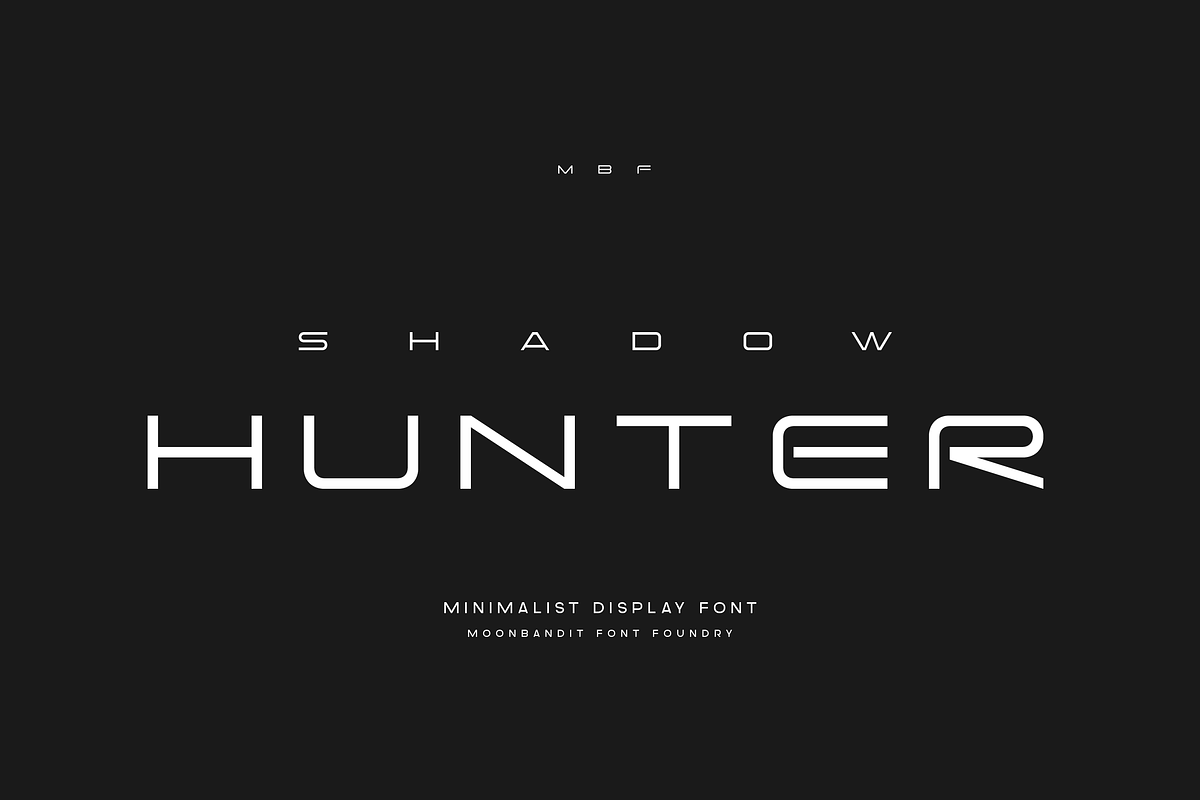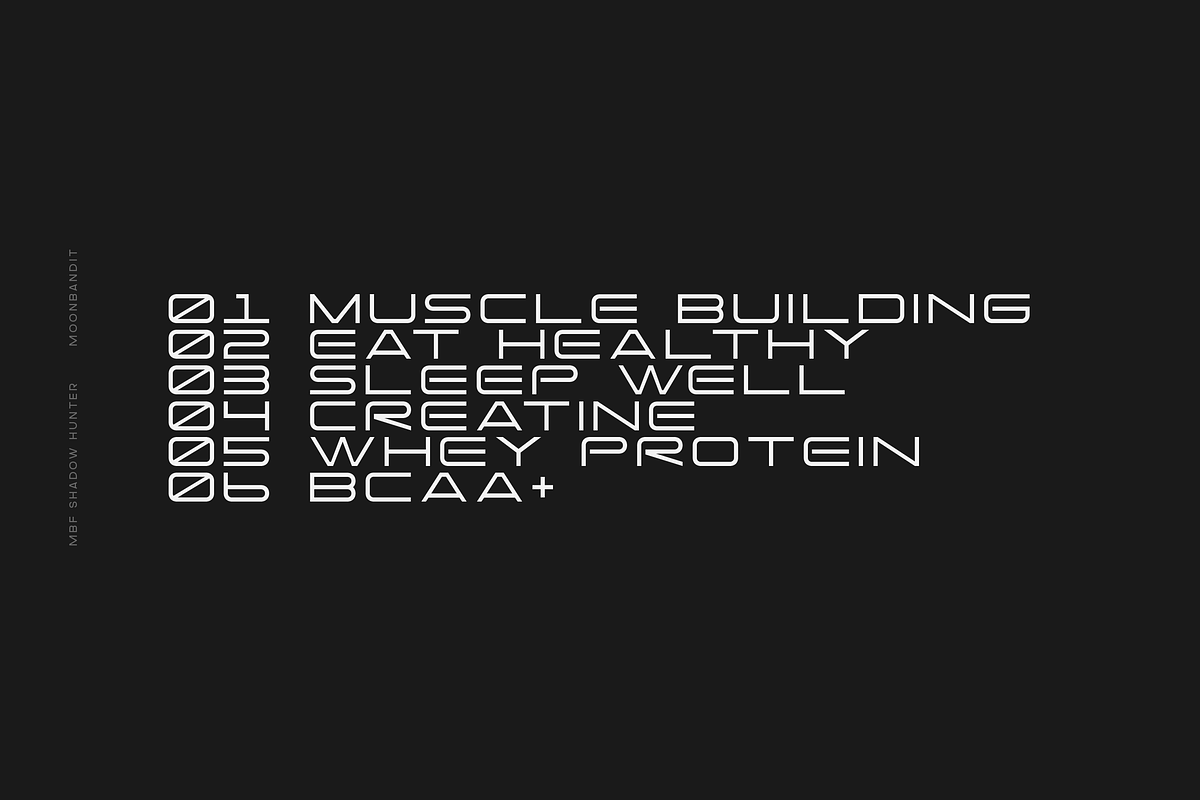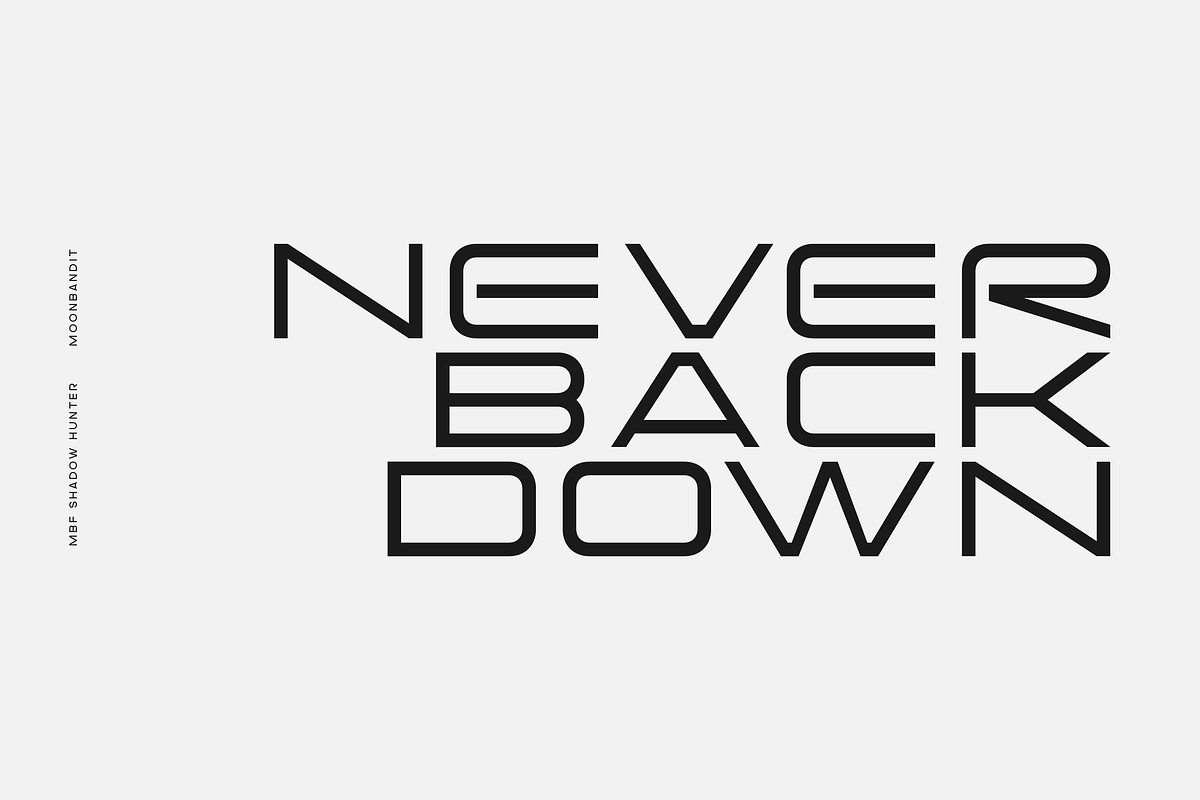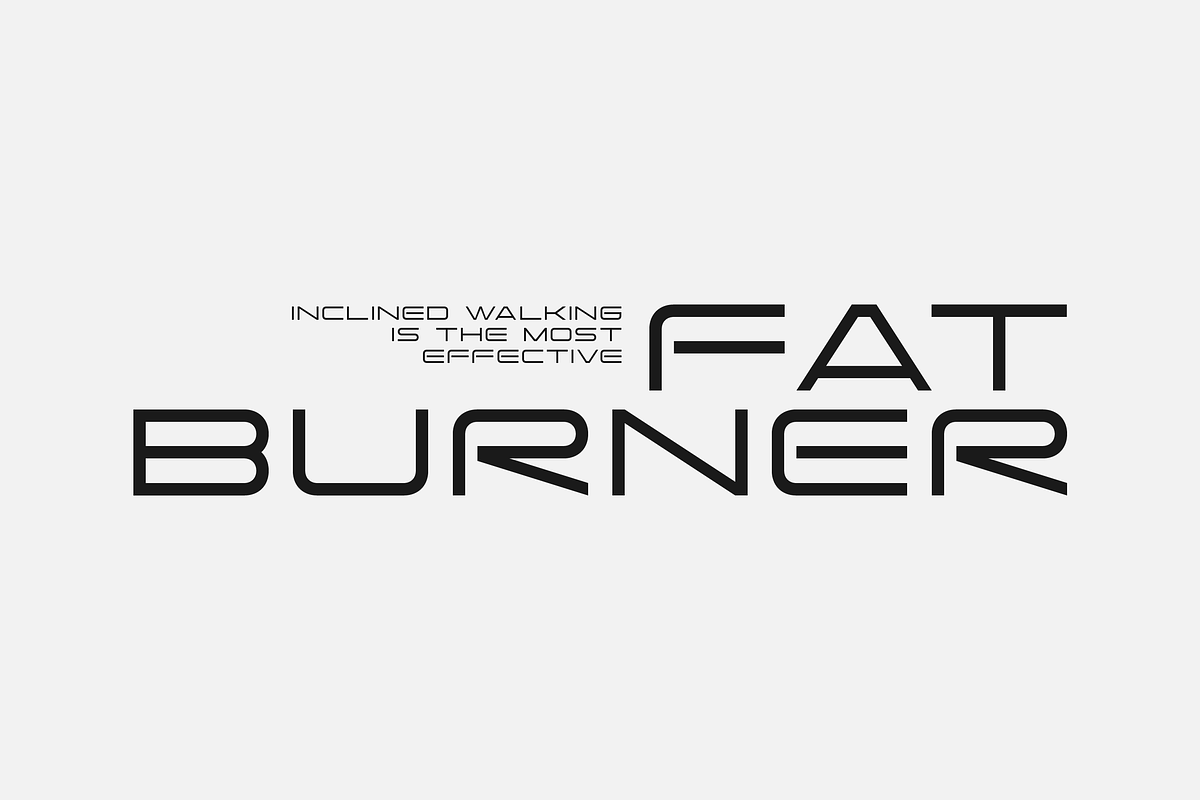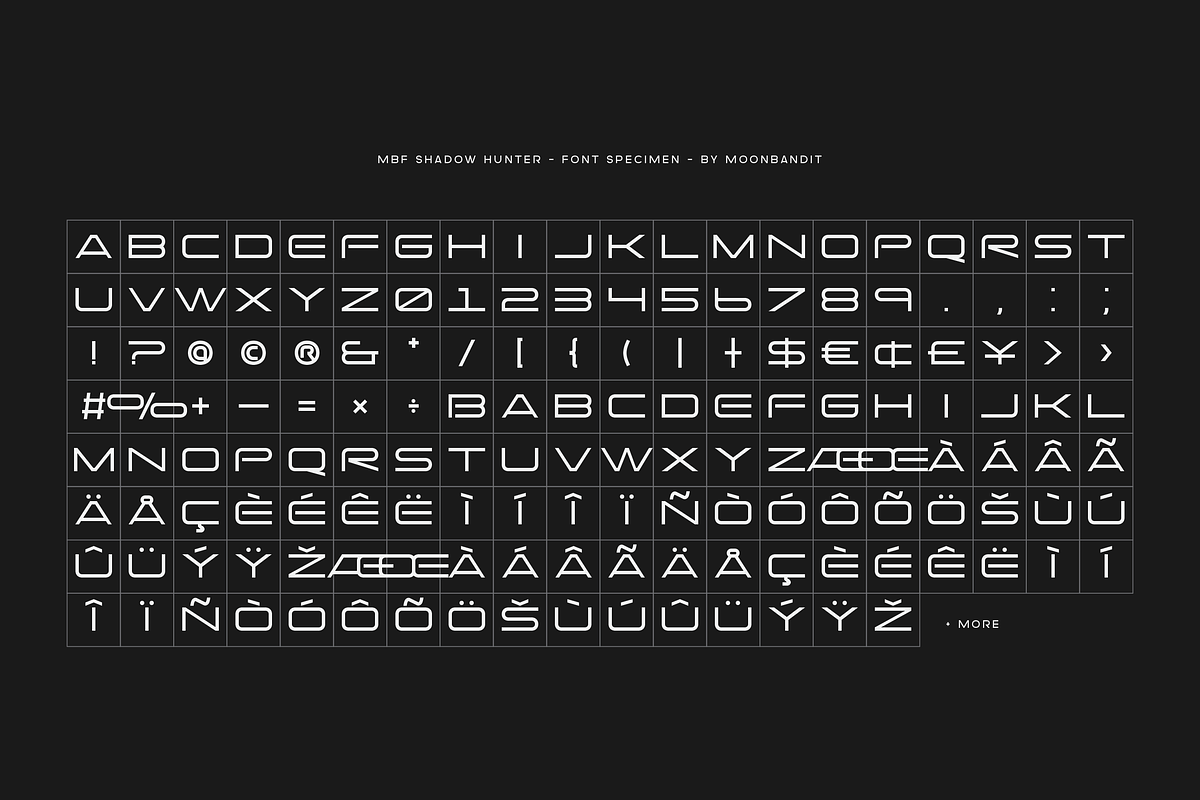
MBF Shadow Hunter
Upgrade your brand’s visual identity with MBF Shadow Hunter, a clean, modern font designed for forward-thinking businesses. Enhance your professionalism and captivate your audience.